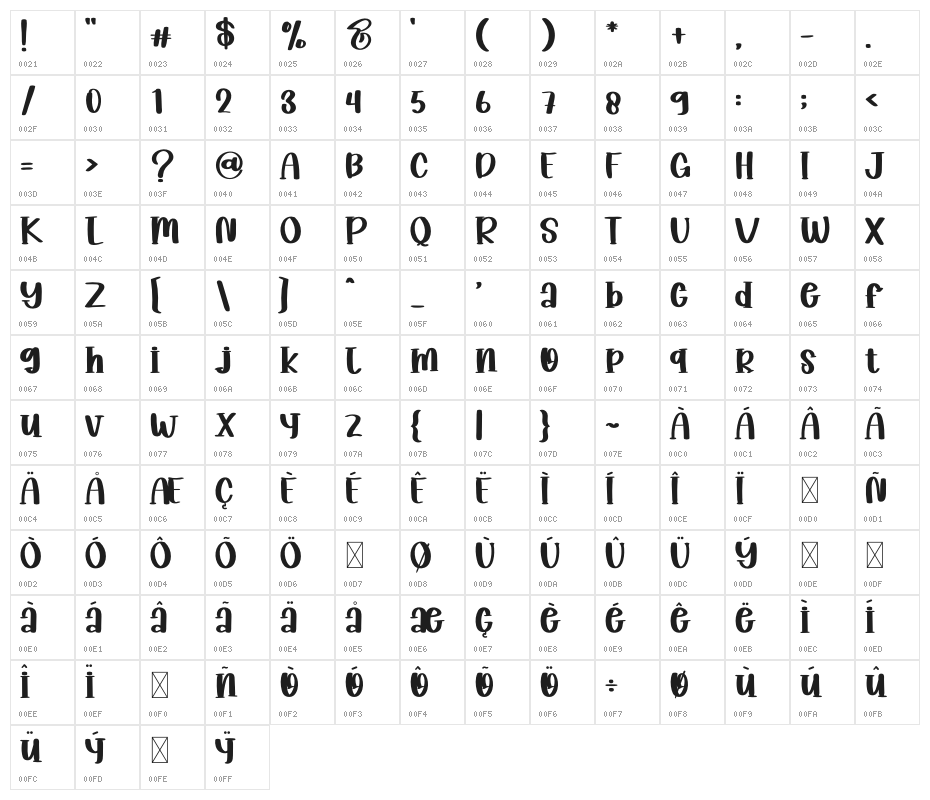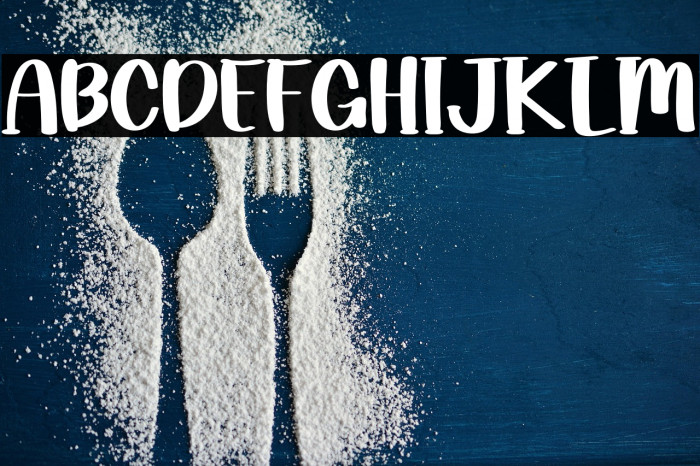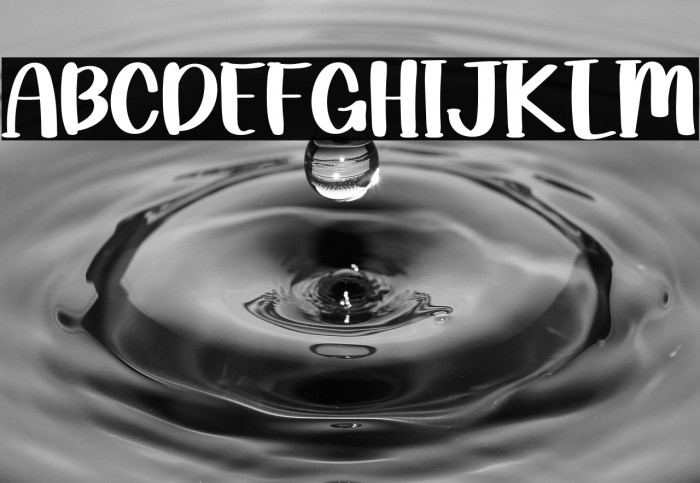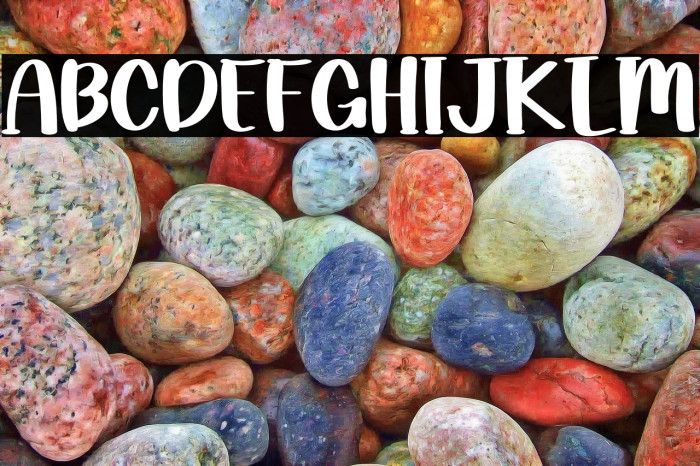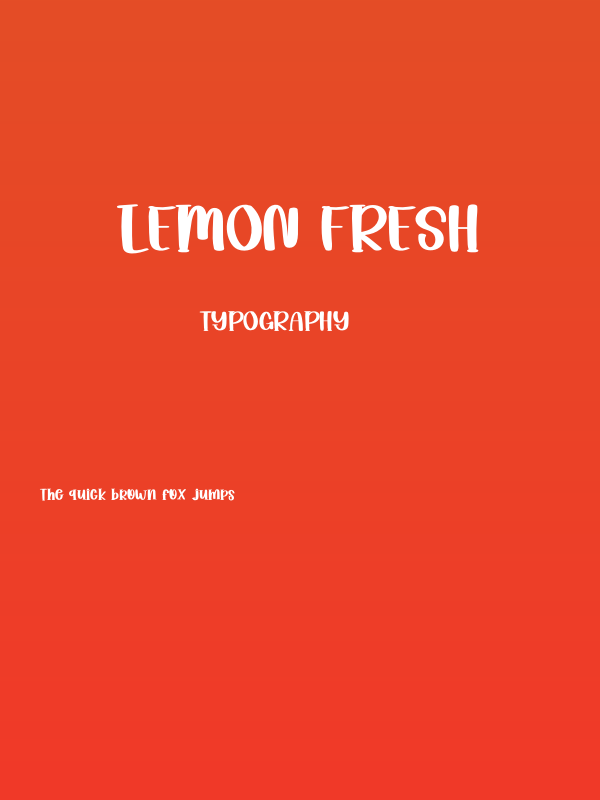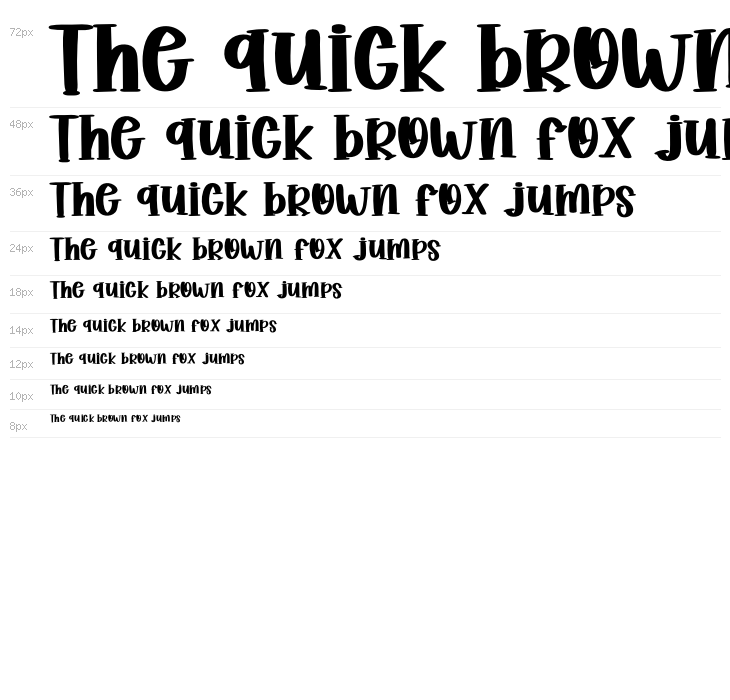
Lemon Fresh Font
Lemon Fresh Description
This font features a playful and bold style with a handwritten feel. The characters are rounded and have a whimsical flair, making them stand out with a lively personality. The uppercase and lowercase letters maintain a consistent style, with some letters having unique, exaggerated curves and loops. The numbers and special characters follow the same playful design, ensuring a cohesive look across all elements. This font is ideal for projects that require a fun and engaging appearance, such as children's books, playful branding, or creative posters.
| Use Case | Logos, Headlines, Posters |
| Proposed Projects | Ideal for children's books, playful branding, creative posters, and any project needing a fun and engaging look. |